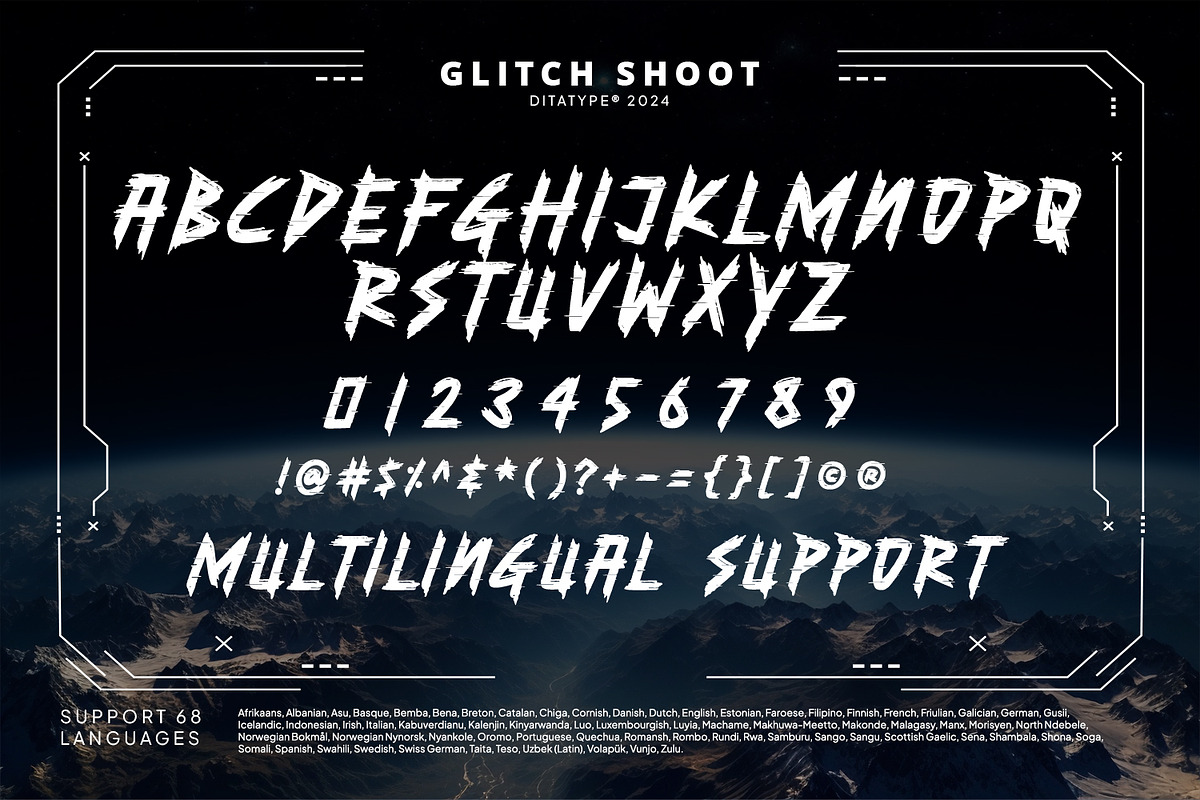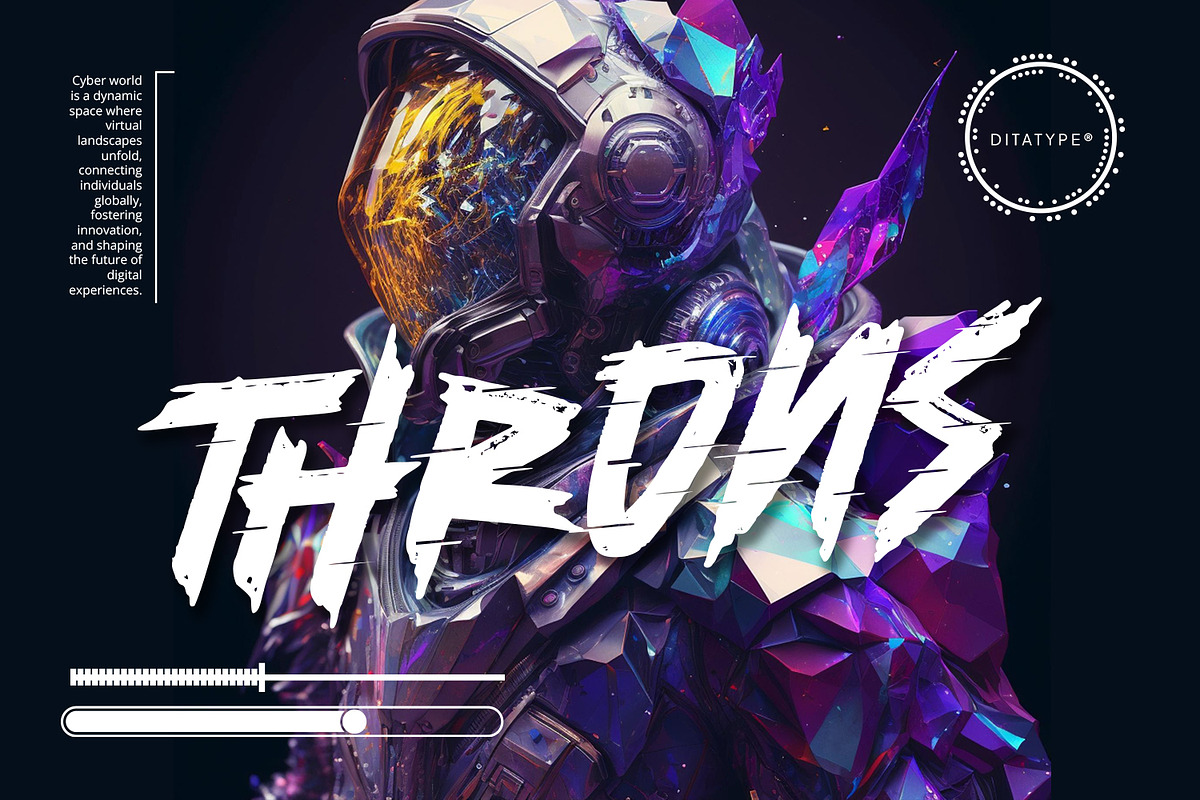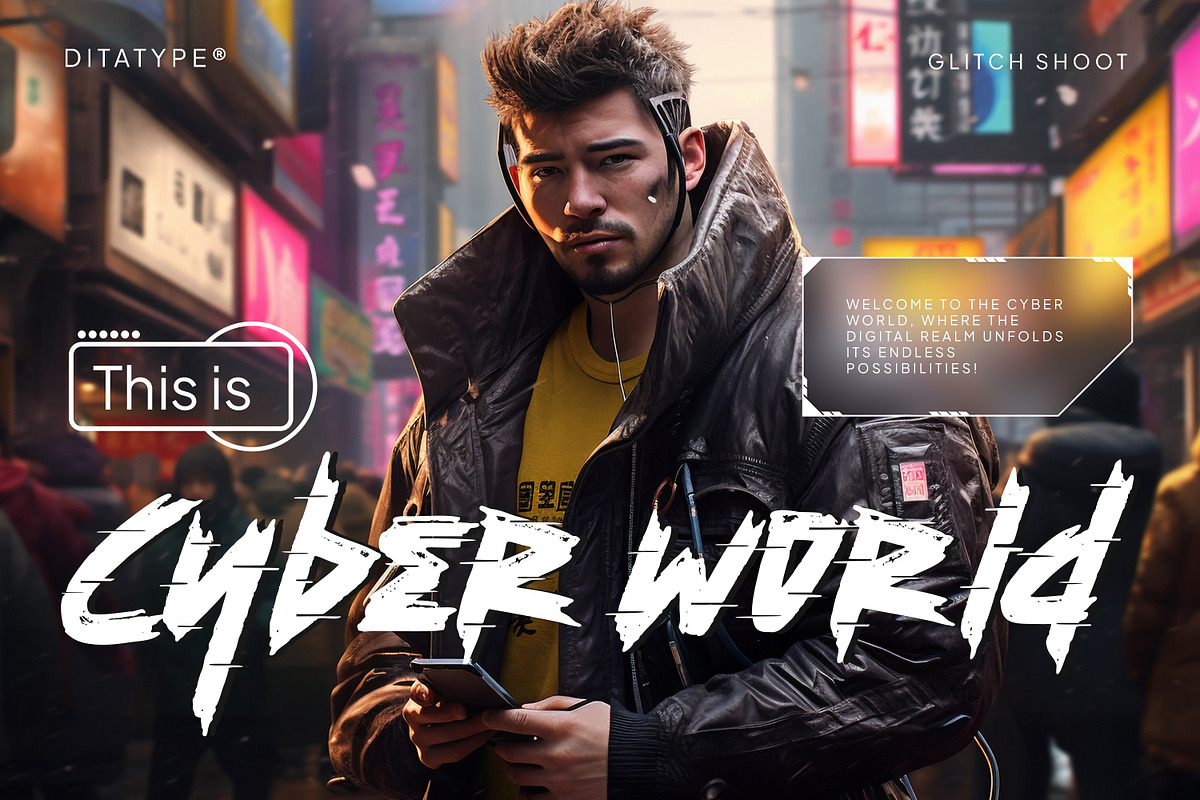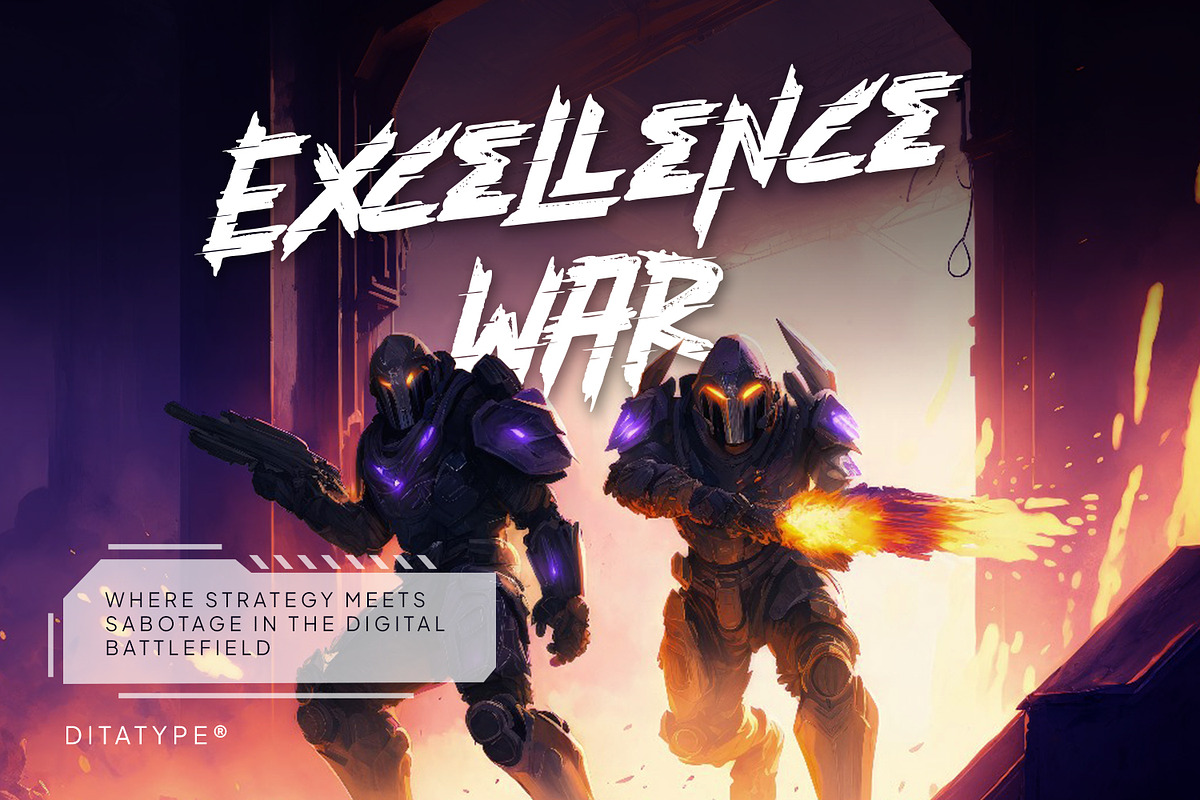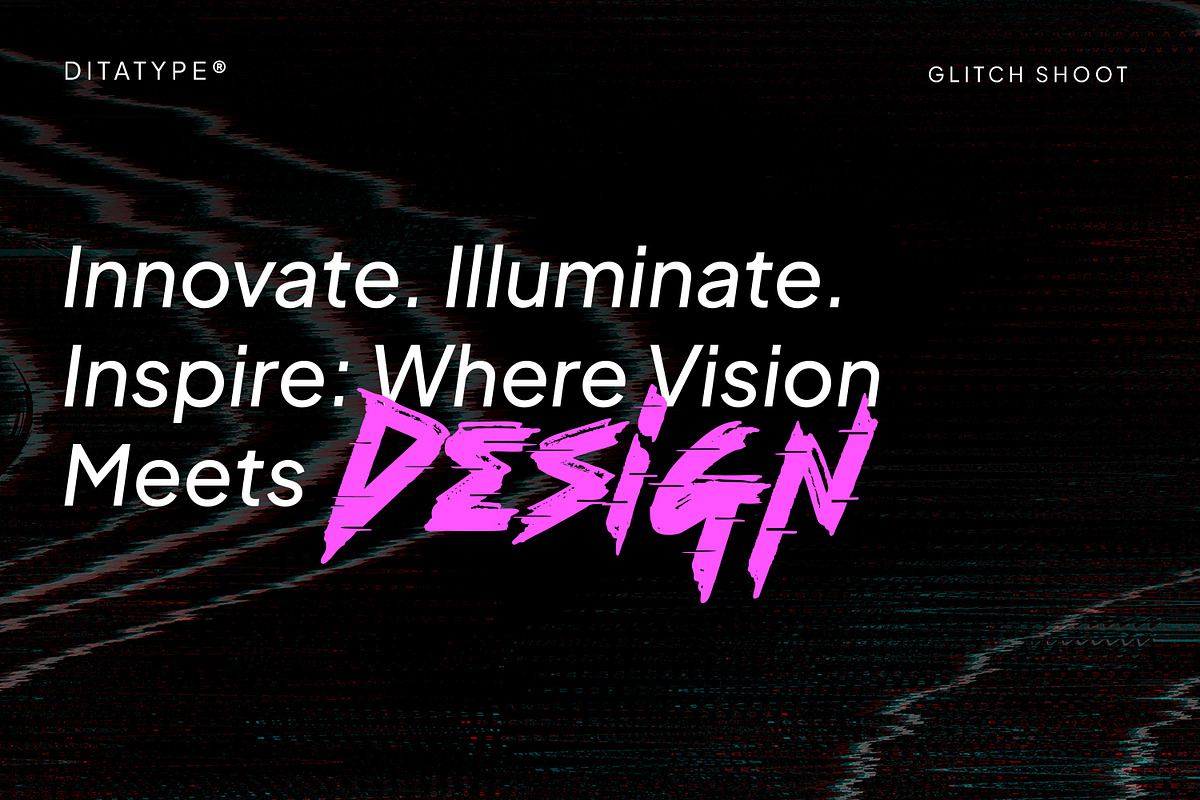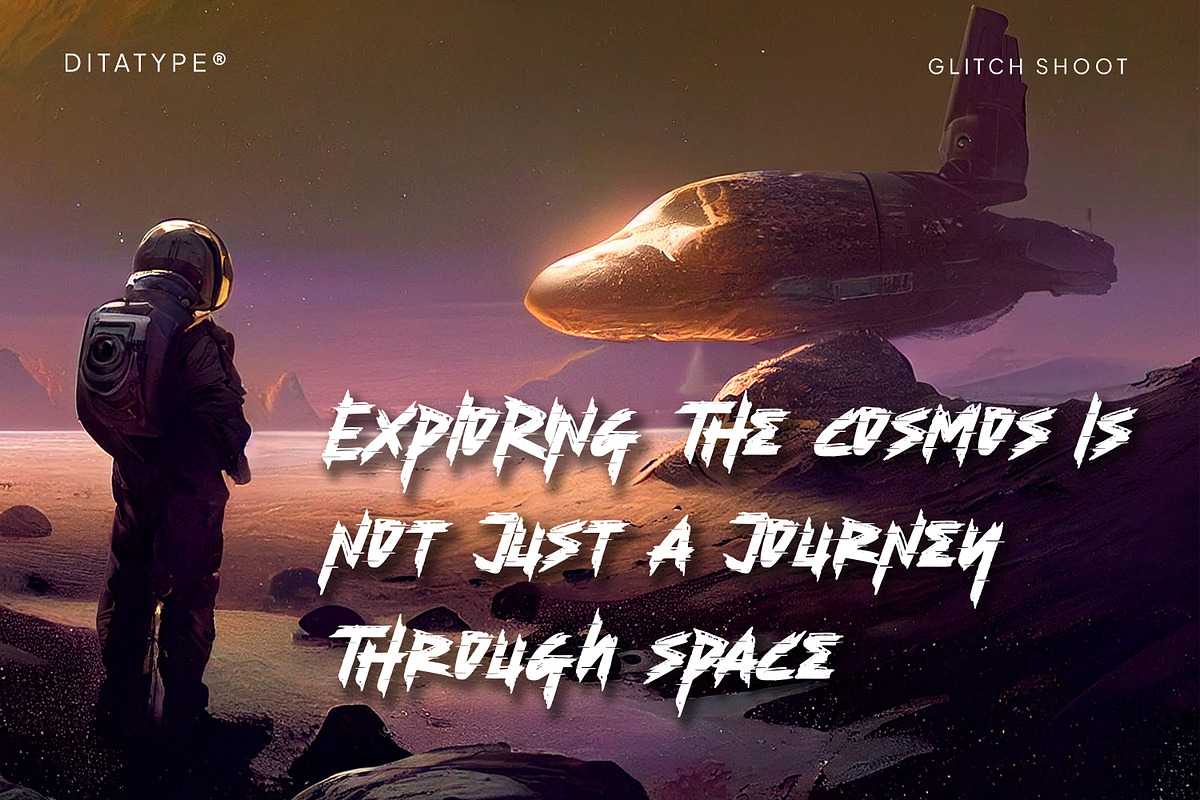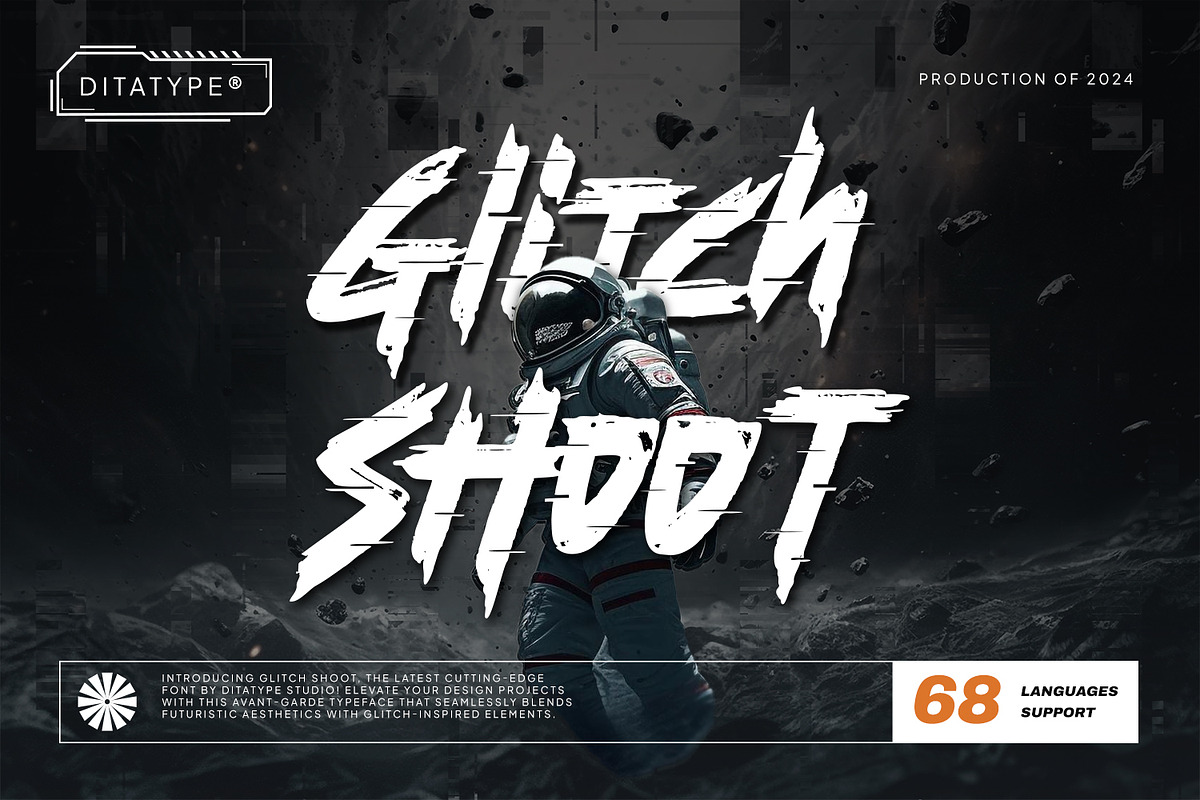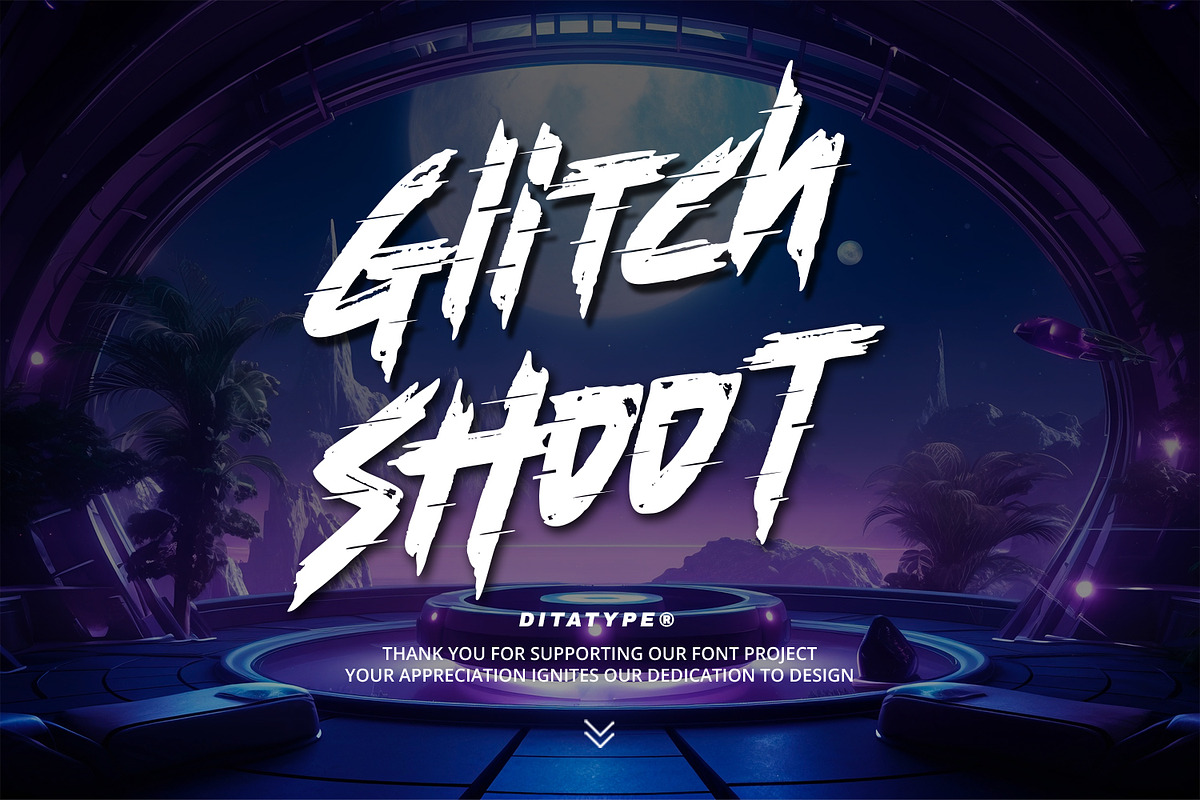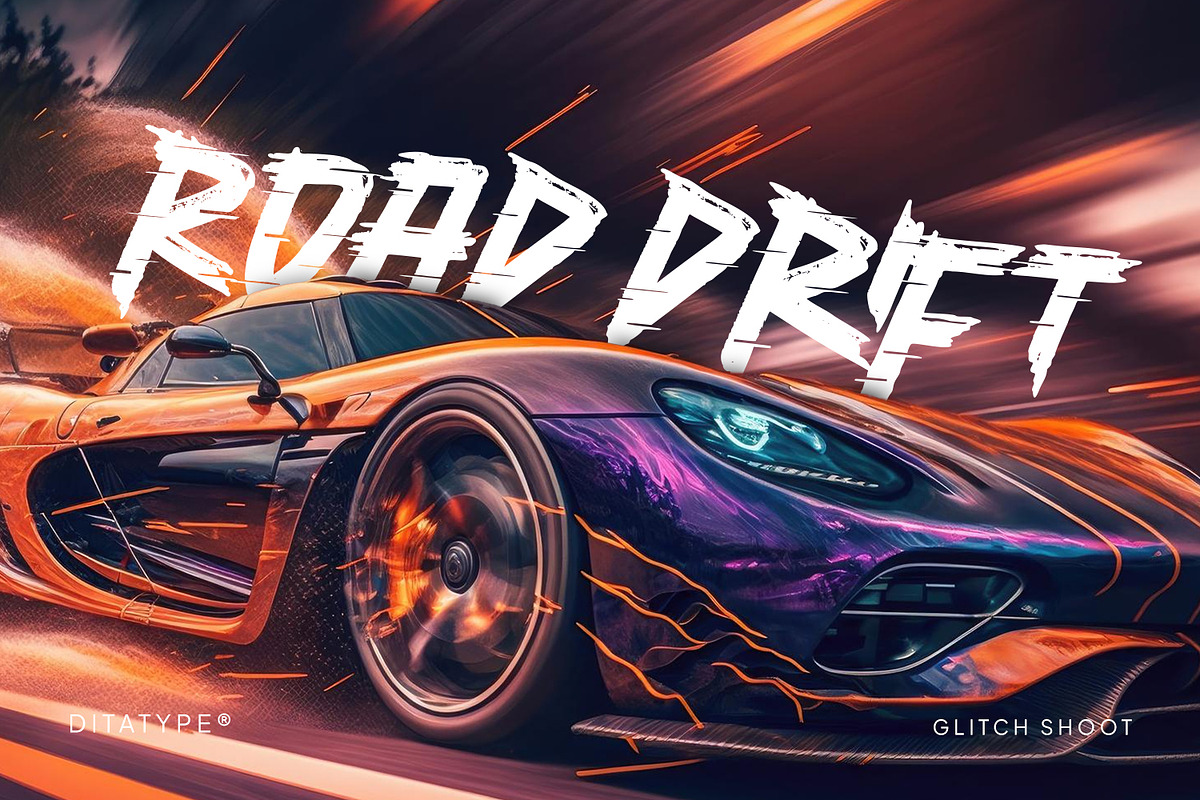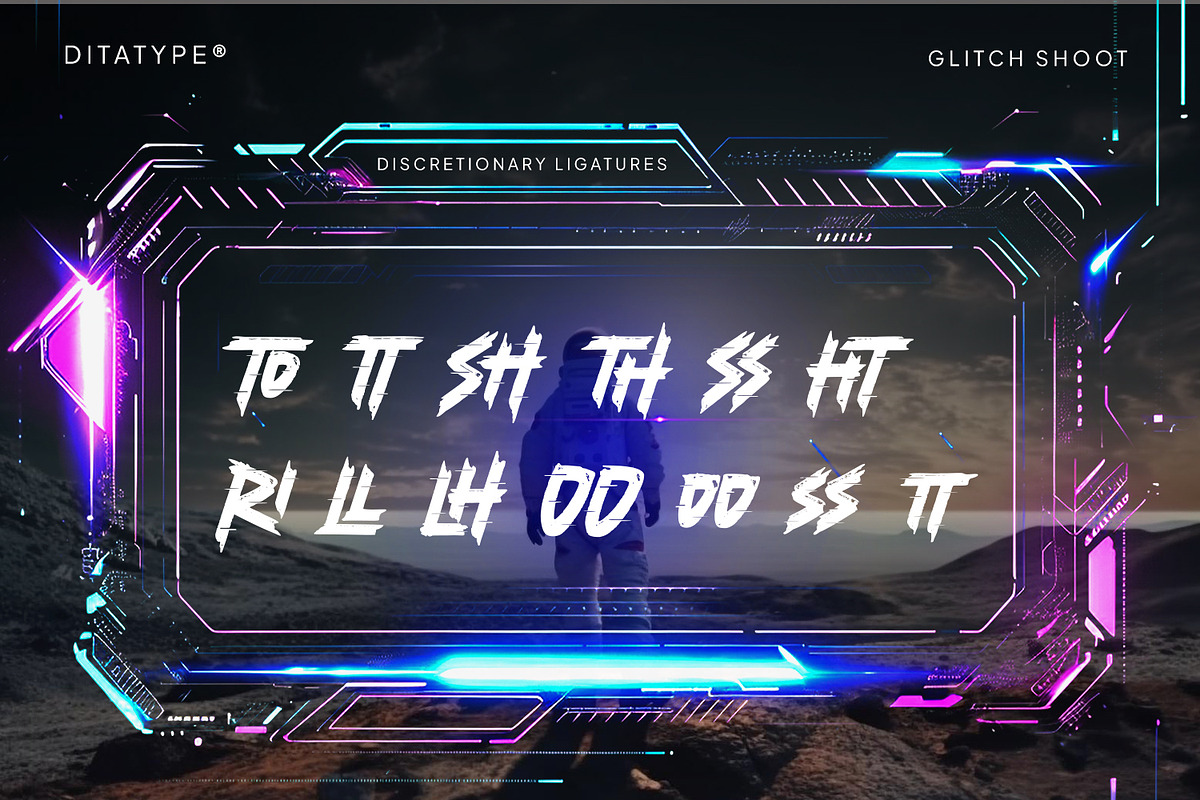
Glitch Shoot
Glitch Shoot is a mesmerizing display font that creates a captivating visual experience. Inspired by the dynamic energy of cyberpunk landscapes and glitch art, Glitch Shoot injects an unmistakable sense of edginess. Its letters seem to flicker and distort, as if caught in a digital maelstrom, yet maintaining a sense of futuristic sophistication.
Crafted exclusively in uppercase, each letter boasts uniform proportions, enhancing its bold and impactful presence. However, what sets Glitch Shoot apart is its deliberate departure from clean outlines, embracing the chaotic allure of digital glitches. The font's design evokes the feeling of a neon-lit metropolis, where technology and chaos coalesce into a stunning visual symphony. In addition, enjoy the features here.
- Stylistic Sets
Glitch Shoot fits in headlines, logos, posters, flyers, branding materials, greeting cards, print media, editorial layouts, and many more designs. Find out more ways to use this font by taking a look at the font preview.